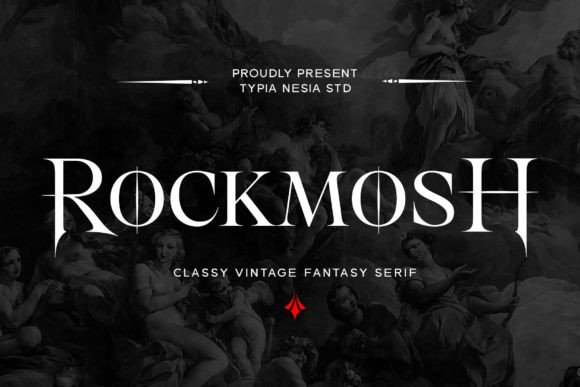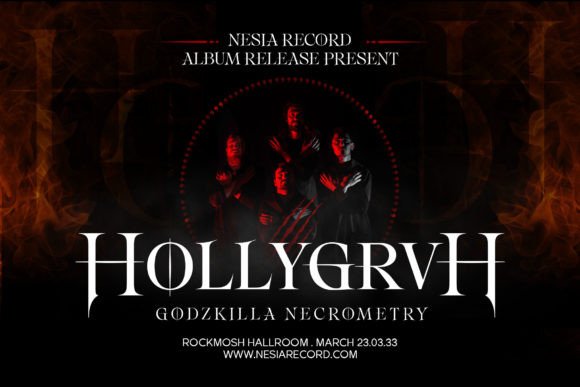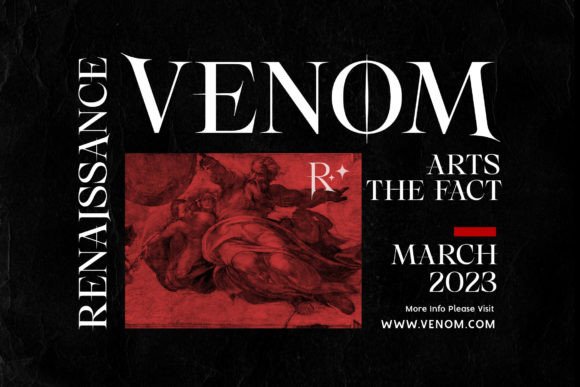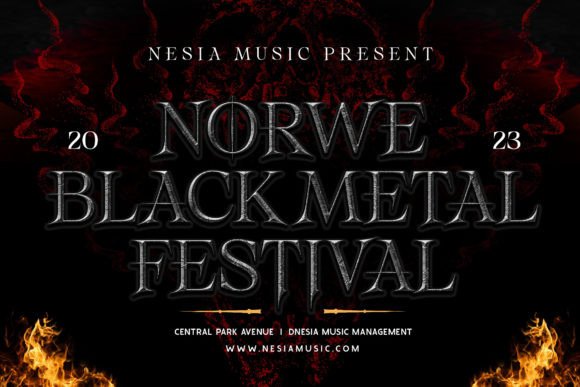
Rockmosh Font: A Magical Gothic Serif for Logos & Branding
About the Rockmosh Font
The wait is over! The incredible Rockmosh Font is now available for your design toolkit. Rockmosh is a classic magical and horror font that is perfect for your upcoming projects. Such as a logo, branding, modern advertising design, Halloween, gothic design, apparel, hardcore music, fantasy animation or movie, logos, adventure poster quote, game industry, music/band, book/cover Title, editorial design, website/blog, card, custom mug, pillow, t-shirts, and any gothic hand-lettered needs.
Rockmosh excels in display applications such as headlines, posters, and logos where its dramatic character can make a strong visual statement. It’s ideal for branding projects targeting a gothic, horror, or fantasy audience, and works well on packaging for related products. However, its highly stylized forms make it unsuitable for body text or UI elements requiring high readability.
For optimal pairings, consider complementing Rockmosh’s boldness with a clean sans-serif like Montserrat for body copy, or a more delicate script font like Great Vibes for secondary text elements that need a softer contrast. A geometric sans-serif could also create a striking modern juxtaposition.
The font’s core personality is bold, rebellious, and dramatic, lending itself to projects demanding a strong, memorable visual identity.
Rockmosh Font Usage Examples
Rockmosh Font Example